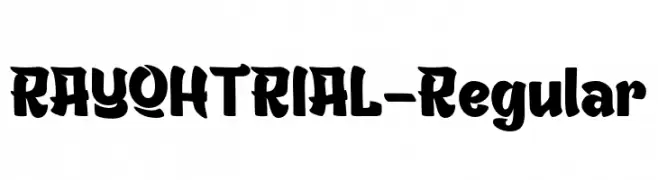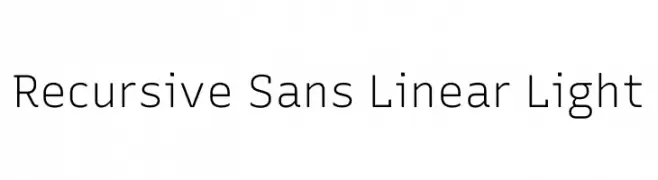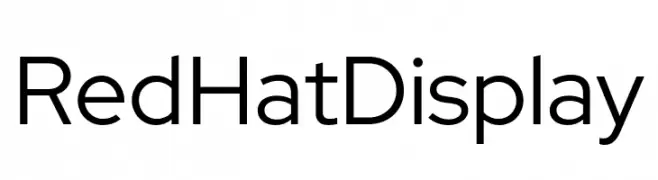
A bold, playful font with rounded characters and exaggerated serifs.
A bold, decorative font with sharp, angular outlines and high contrast.
A bold, angular font with a futuristic and dynamic style.
Bold, distressed style mimicking a recording indicator with grunge texture.
A modern, geometric sans-serif font with clean lines and balanced proportions.
A modern, geometric sans-serif font with clean lines and balanced structure.
A modern, geometric sans-serif font with clean lines and open forms.
A bold, modern sans-serif font with geometric letterforms and consistent stroke width.
A bold, modern sans-serif font with clean lines and geometric shapes.